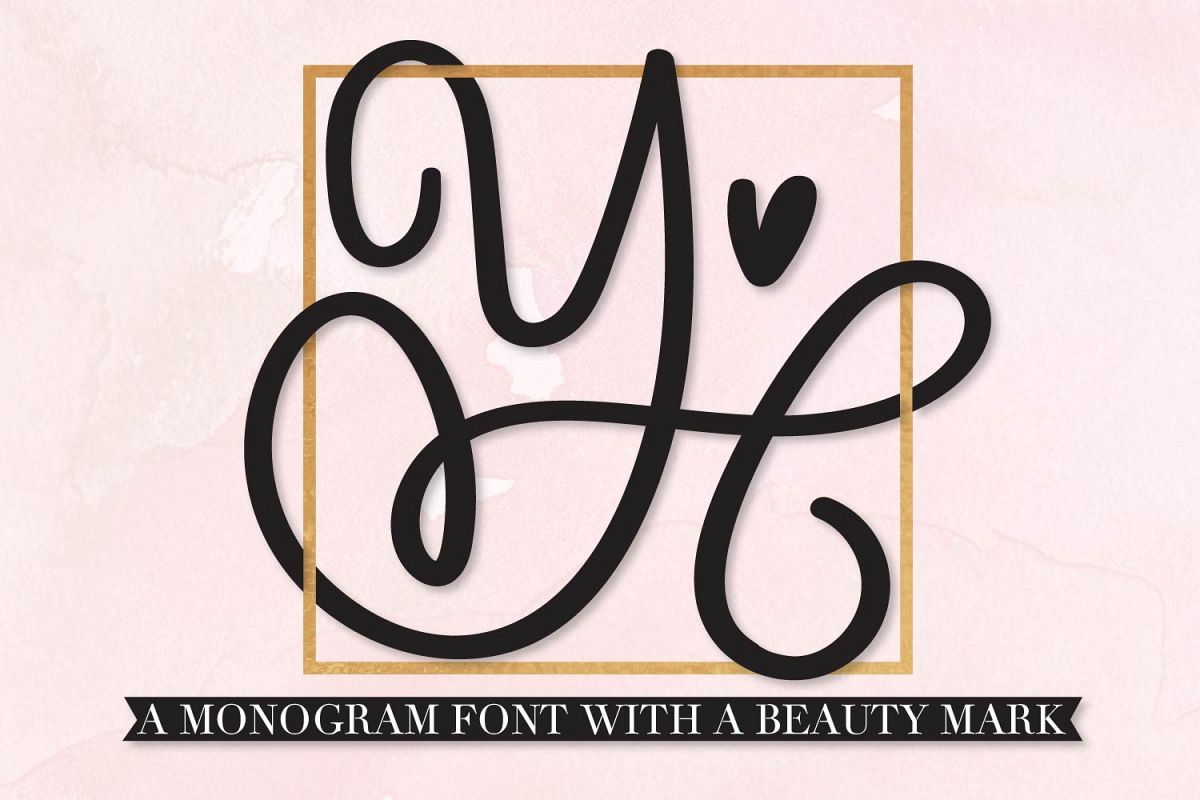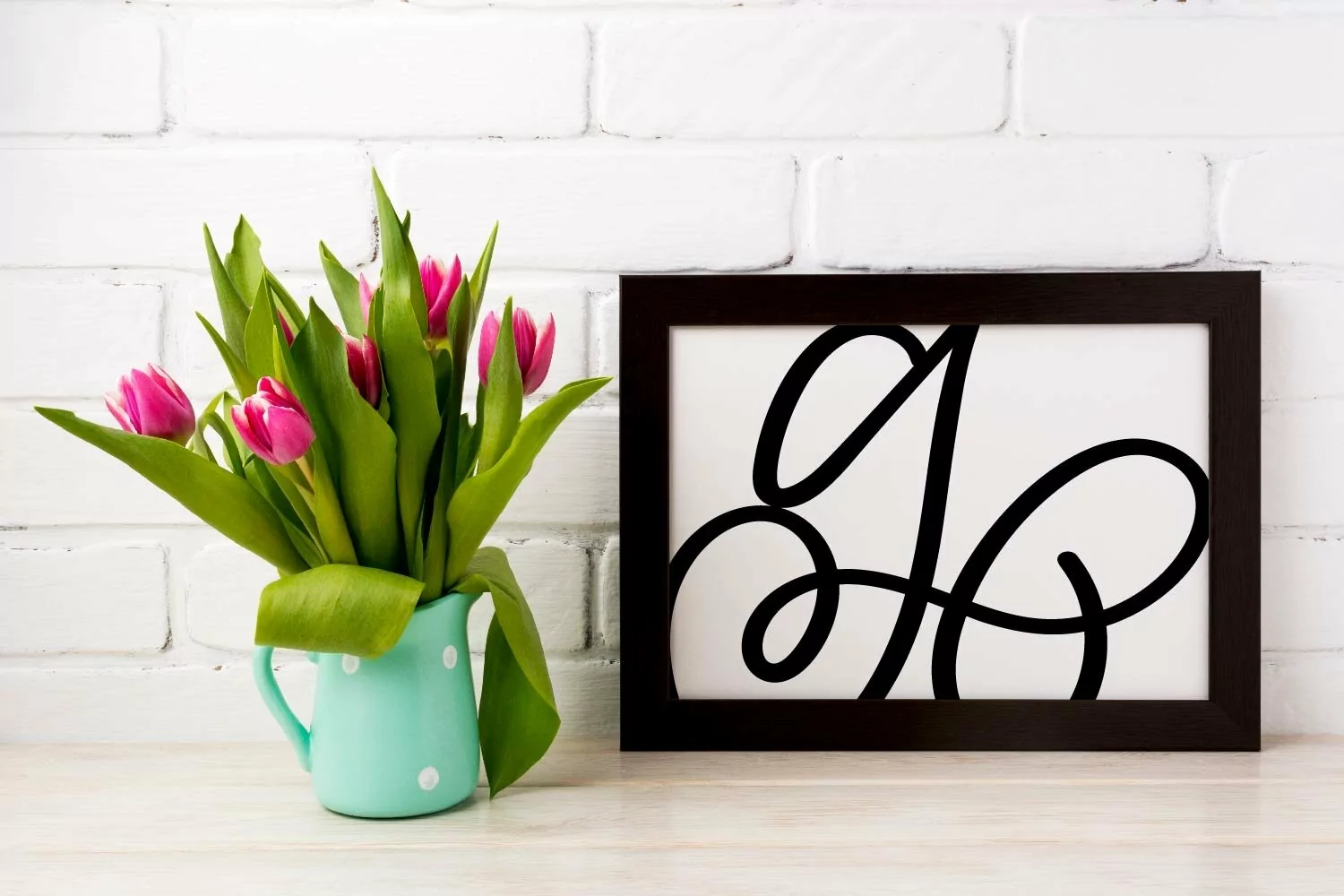
Scripty Monogram Font - With heart accents
This font is a monogram font - so only the A-Z are offered. Lower case will give you a version without the heart accent.